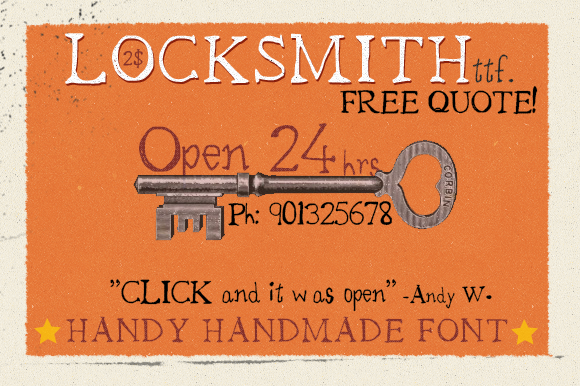
Locksmith Font - Sale
This a very simple handmade font, the product includes the font and the PSD of the above graphic so you can see how I got bold and italics.